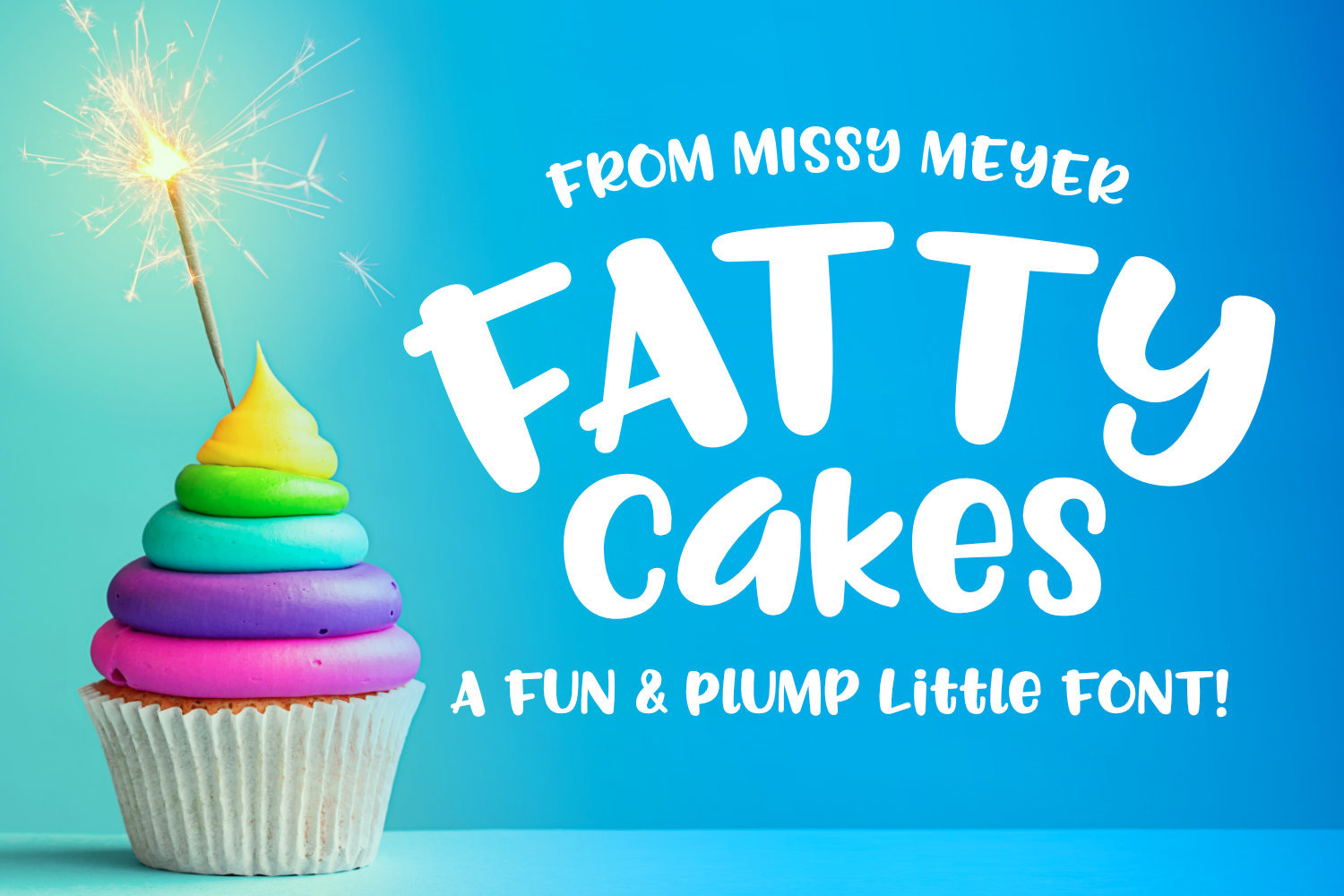
Fattycakes: a plump & fun font
Fattycakes is a cute, chubby, plump little font.
I've taken the style of my Rough Puff font, which has a distressed texture, and re-done the letters in a much smoother, craft-friendly style. Most fonts tend toward taller and narrower, so I like that this font is more squat and wide.
The lowercase letters are the same height as the uppercase, so you can mix and match cases to your heart's content.
The Rough version of Fattycakes is the letters as they were imported from the original scans -- a little bumpy, a little wobbly (but still spaced and kerned, with over 200 accented characters included). For the smooth version, I took those rough letters and adjusted every point, line, and curve to give a much sleeker finish.
- Uppercase A-Z, lowercase a-z, numbers 0-9
- Standard punctation marks, including weirdos like the copyright symbol
- 200 accented characters in each font for language support